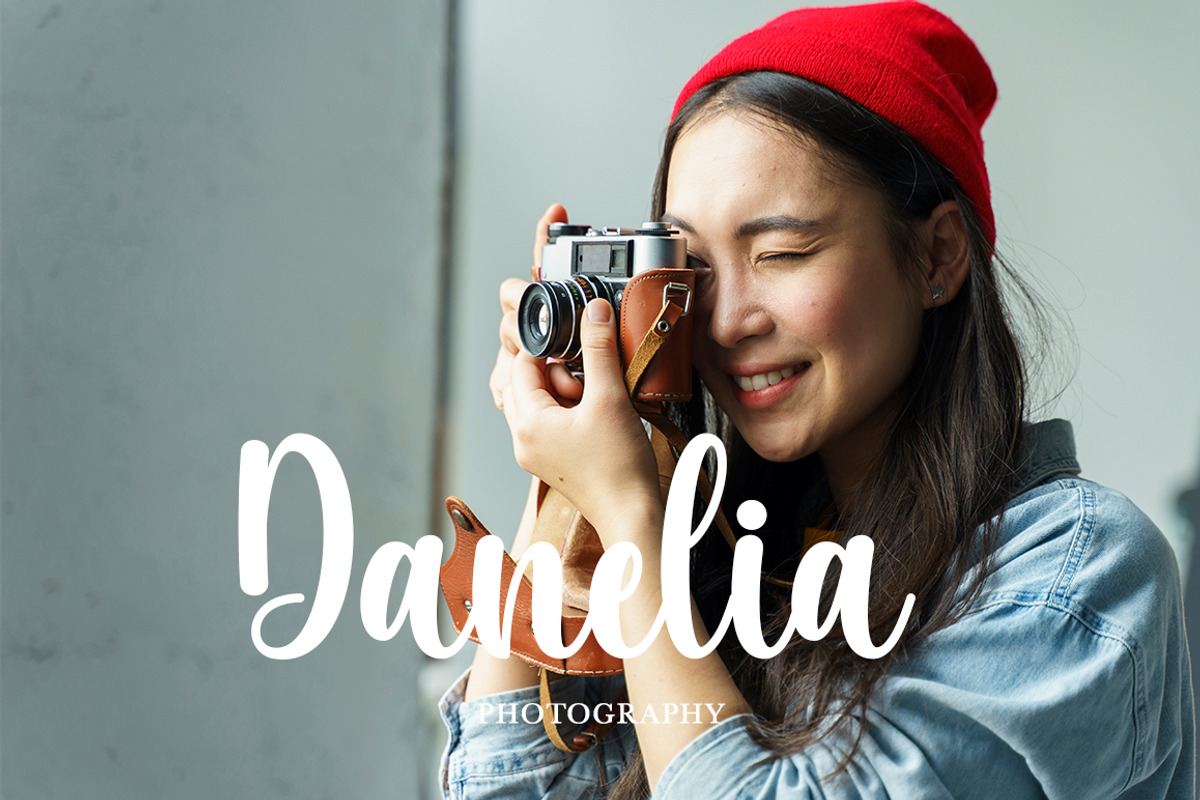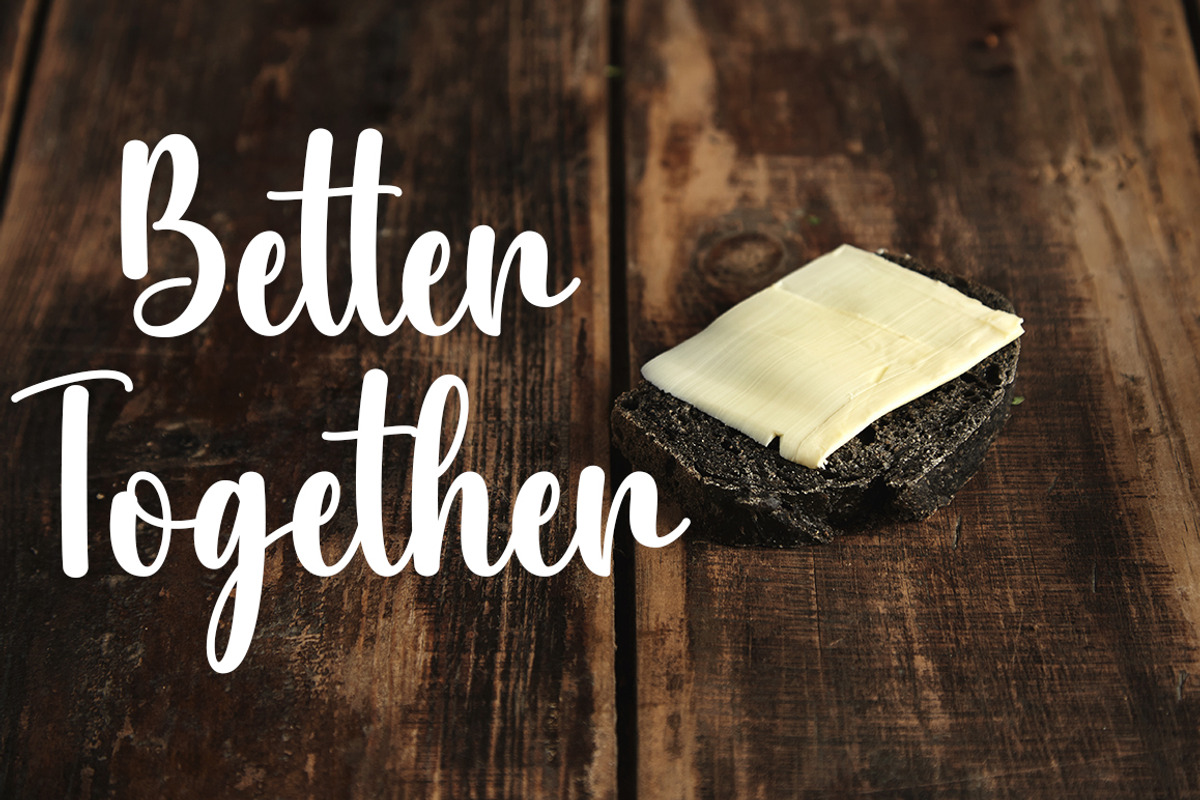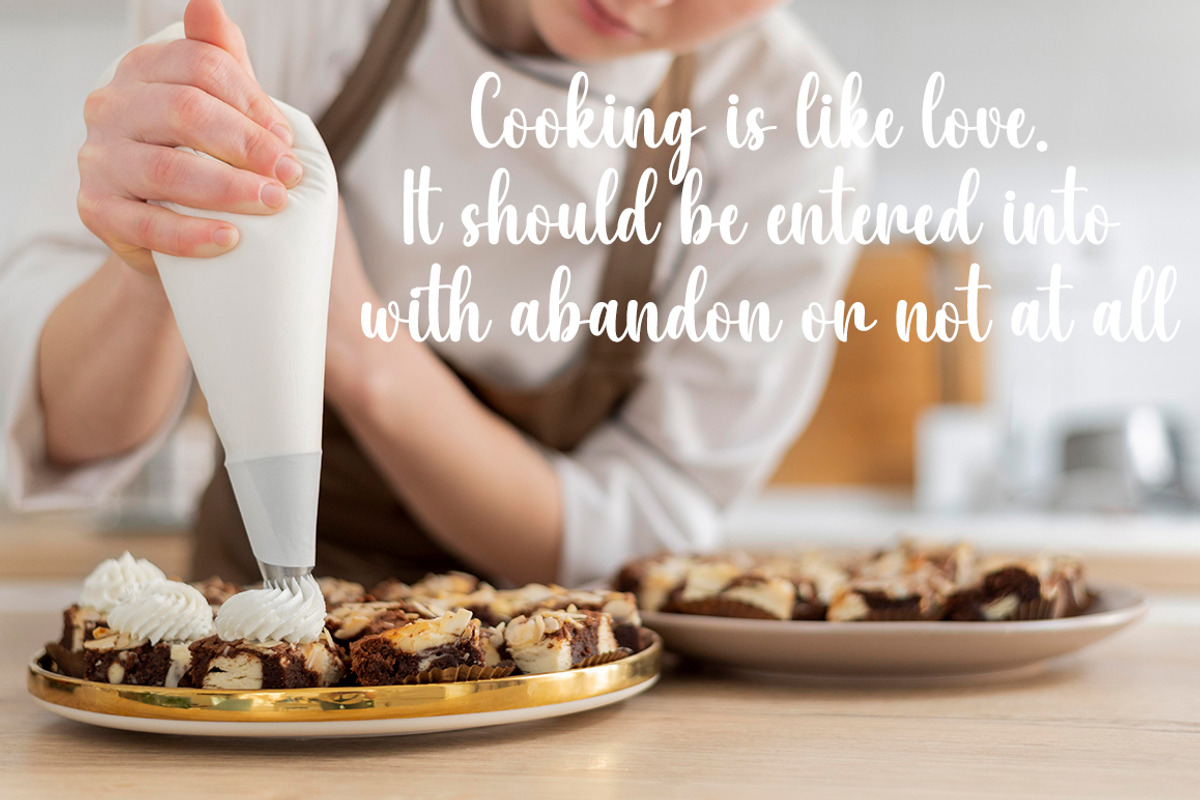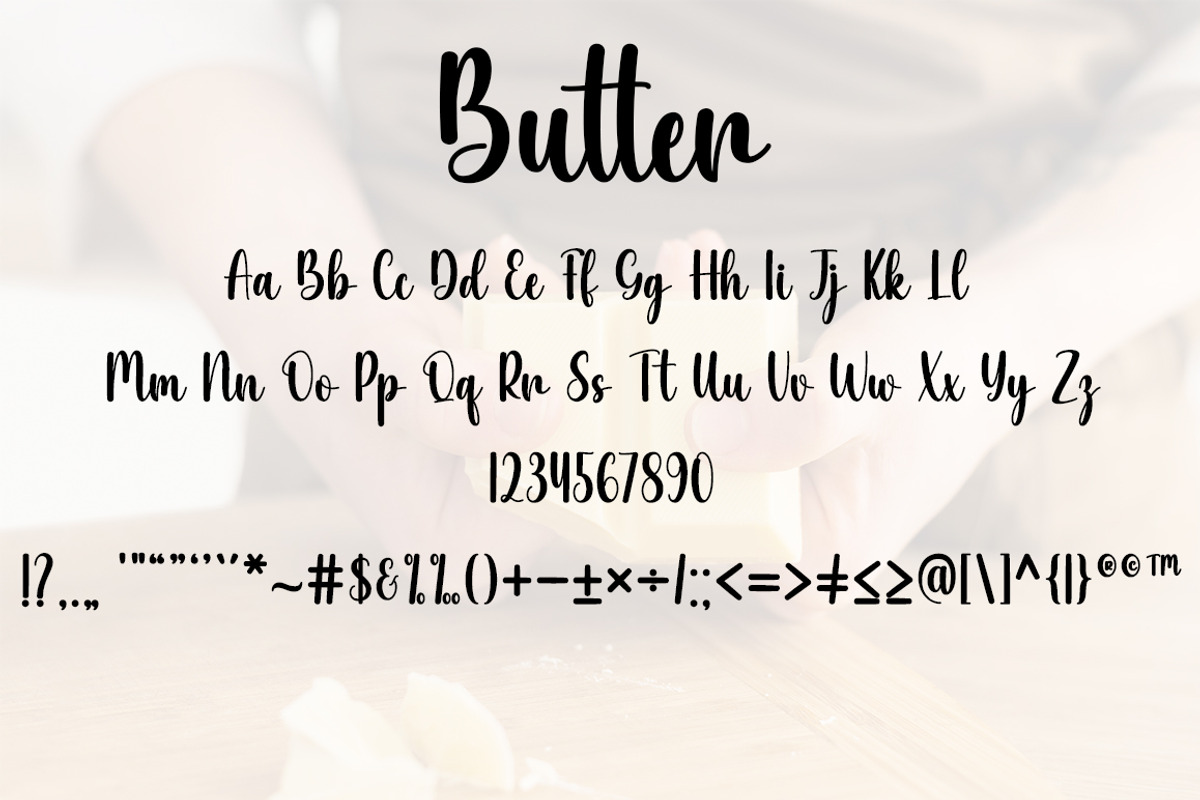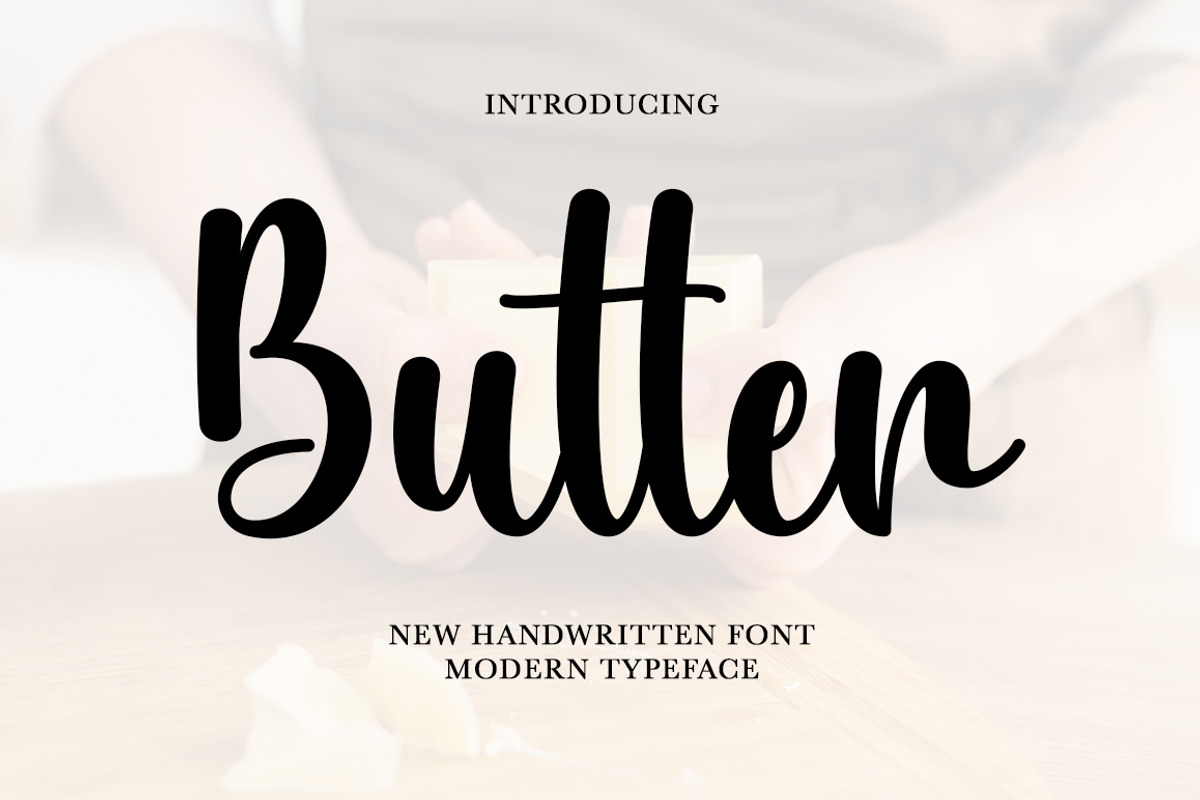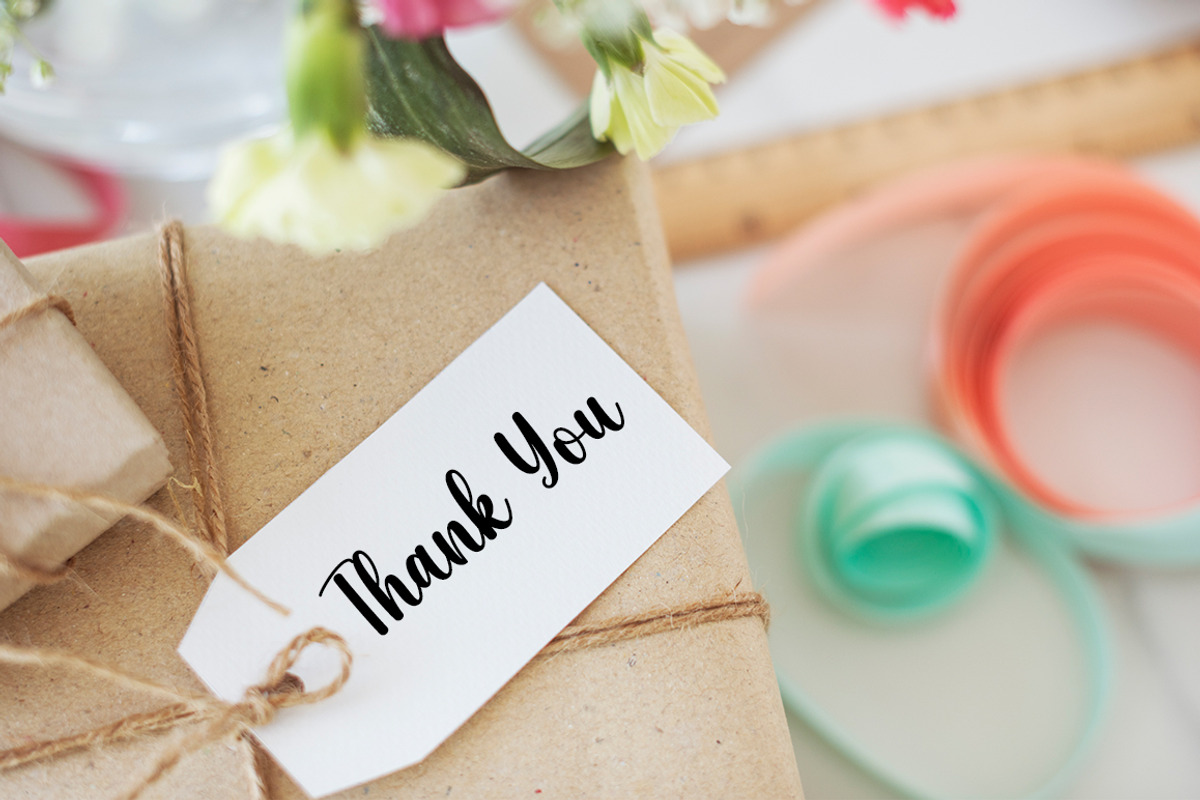
Butter
Butter is a beautiful handwritten font with a natural, flowing style. It looks like elegant cursive writing, perfect for adding a personal and stylish touch to invitations, logos, and social media posts.